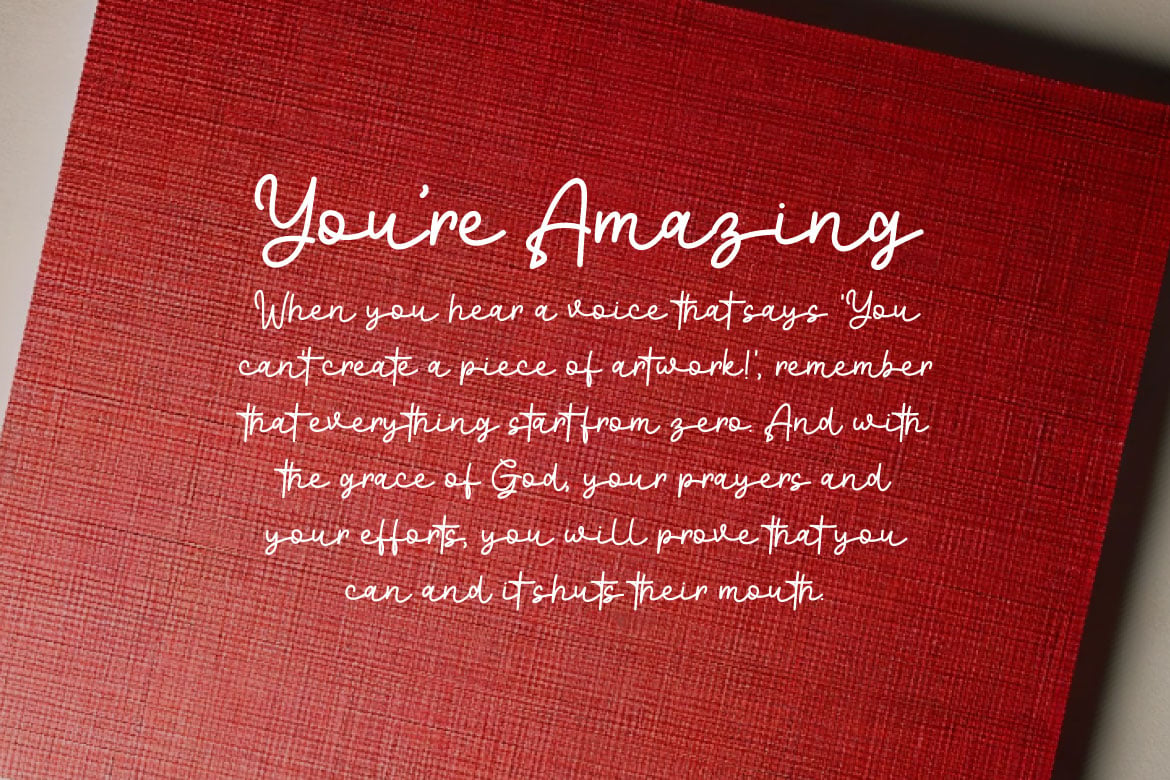
Albertos – Signature Script Font
Introducing Albertos – Signature Script Font, a beautifully crafted signature script font designed to add a touch of elegance and sophistication to your projects. With its fluid strokes and exquisite details, this font is perfect for creating stunning logos, branding materials, wedding invitations, social media graphics, and more. Whether you’re a designer looking to elevate your branding projects or a creative individual aiming to add a personal touch to your social media posts, Albertos is the perfect choice. Its sophisticated and stylish appearance will make your text stand out and leave a lasting impression.